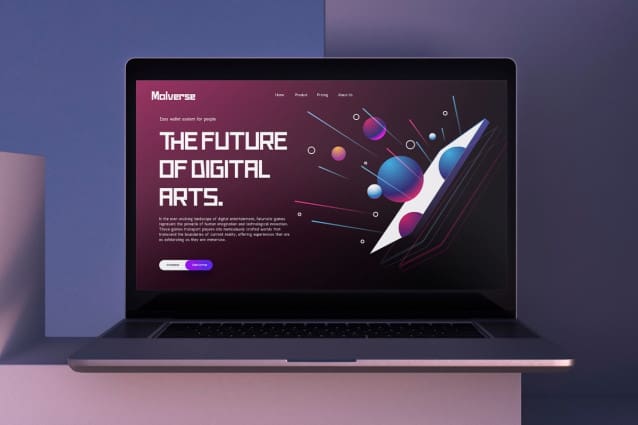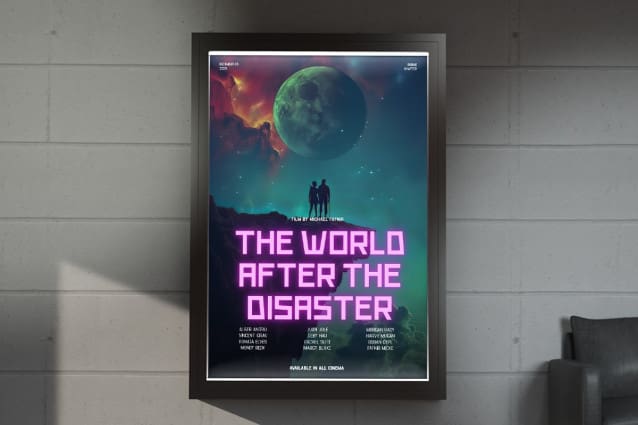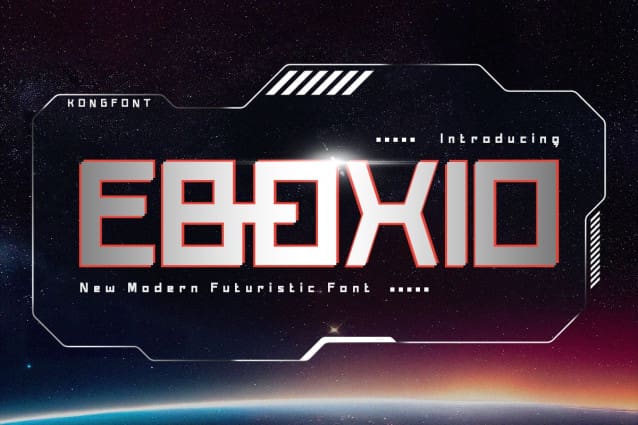
Eboxio Futuristic Font
Eboxio Futuristic Font – Modern Display Futuristic Font provides a new look that is different from the general fonts. This font is a display font that carries a simple, and upright feel. It can also be used as a bold and modern font.
Eboxio Futuristic Font – Modern Display Futuristic Font has many matches when combined with the product to be used. Fashion brand tags such as clothing will work well with this typeface. There is no need to add excessive pictures and ornaments because Eboxio Futuristic Font – Modern Display Futuristic Font has presented its identity where a simple yet vintage impression radiates. Eboxio Futuristic Font – Modern Display Futuristic Font is a typeface that can be used as digital fonts and print fonts. This font can be used as a title that appears first in intro videos that catch the viewer’s attention at a first impression.
Posters and magazine cover work especially well when using the Eboxio Futuristic Font – Modern Display Futuristic Font. This is because even though this font is a serif typeface, it can be seen clearly and can be distinguished per letter. So this font is included in legible fonts.